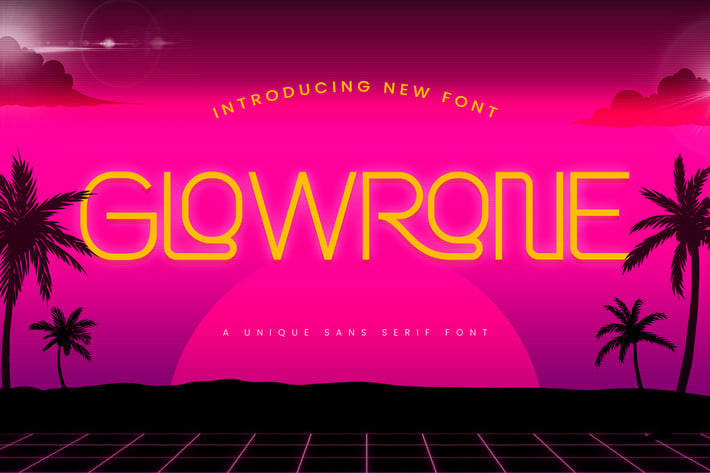
Glowrone - A Unique Sans Serif Font
Glowrone is a distinctive sans serif font that blends modern simplicity with a touch of uniqueness. Its clean lines and subtle, unexpected details make Glowrone a standout choice for projects that require a contemporary yet individualistic aesthetic. Perfect for logos, branding, web design, and editorial layouts, this typeface offers versatility while maintaining a strong visual presence. Glowrone’s unique character ensures that your designs are both sleek and memorable, making it ideal for creative professionals seeking a fresh and modern look.
– Lowercase
– Ligature
– Multilingual Support
– Lowercase
– Ligature
– Multilingual Support